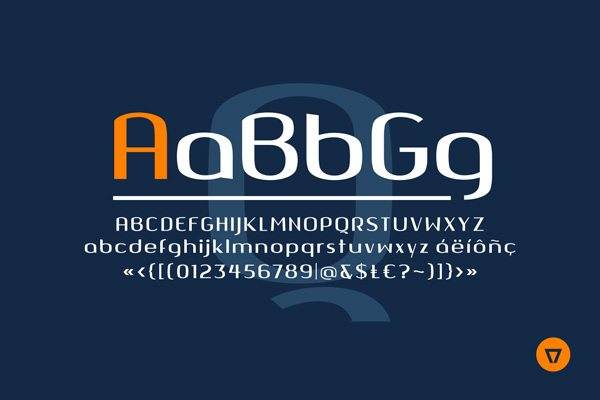
Quango Font – Free Font Of The Day #189
Quango Font
modern sans serif font pack with a singular techno approach, wide glyphs and contrasted, angular strokes. Designed by Nima Visual.